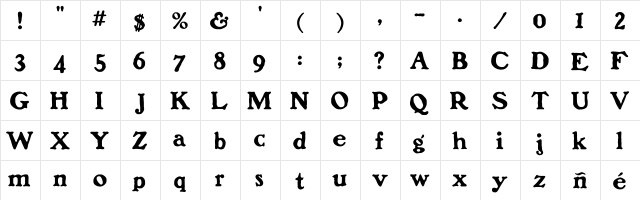
BenFranklin Regular
Design Context for BenFranklin Typeface
BenFranklin takes a measured approach to typography — its balanced proportions and neutral character make it a reliable workhorse for both digital and print work.